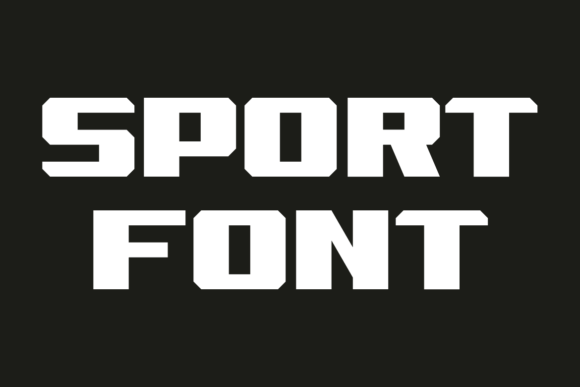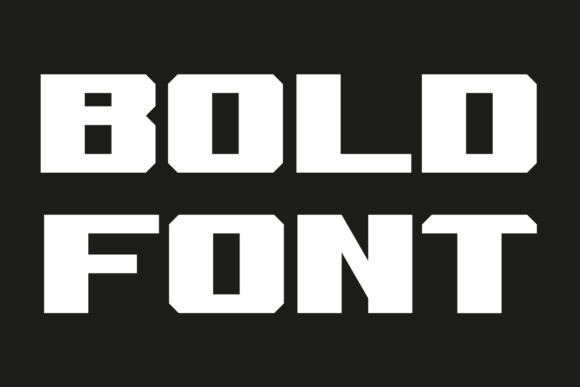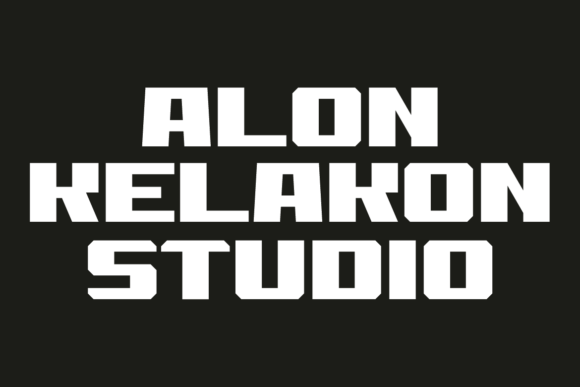
Hard Sport Font: A Bold Sans Serif for Logos & Branding
About the Hard Sport Font
Make a bold statement with Hard Sport Font, a powerful and memorable font. Hard Sport feels playfully nostalgic and delivers an incredible vintage aesthetic. Use this sans serif font to add that special retro touch to any design idea you can think of!
Hard Sport excels in headlines, logos, and short-form text for projects needing a retro-inspired, energetic feel. Think vintage sports apparel, posters for concerts or sporting events, or branding for a craft brewery with a nostalgic vibe. It’s less suitable for body copy or UI elements due to its relatively low x-height and potentially uneven readability in larger blocks of text.
Pair Hard Sport with a clean sans-serif like Futura for a balanced contrast or a classic serif such as Garamond for a sophisticated juxtaposition of old and new. A playful script font like Pacifico could also work well for secondary text elements, enhancing its vintage charm.
The font’s personality is undeniably bold and playful, with a strong vintage aesthetic. Its slightly irregular letterforms add a handcrafted feel, making it ideal for brands aiming for a retro-inspired, energetic, and authentic image.